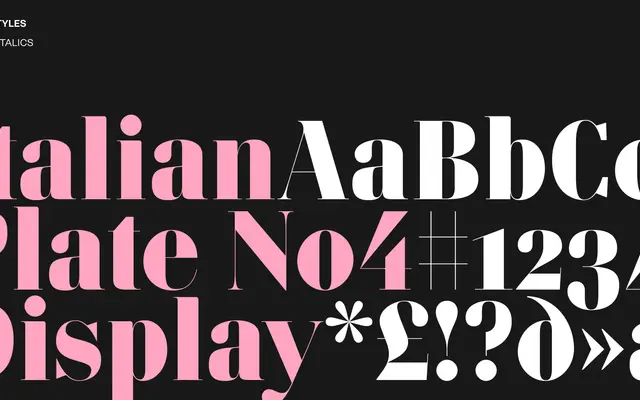
Italian Plate No4 Display
A display-optimised cut from Playtype's Italian Plate series, drawing on engraved lettering traditions for large-scale typographic work.
Part of Playtype's Italian Plate family, this display variant is calibrated for headline and poster use where the engraved character of the series reads at its strongest. The series takes cues from Italian plate engraving traditions, reframed for contemporary editorial and identity contexts. Minimal page content was available, but the naming convention places it firmly in the optical display tier of the broader Italian Plate range.
Classified as display given the name explicitly positions it for large-scale use; the Italian Plate series draws on engraved lettering traditions adapted for contemporary display applications.